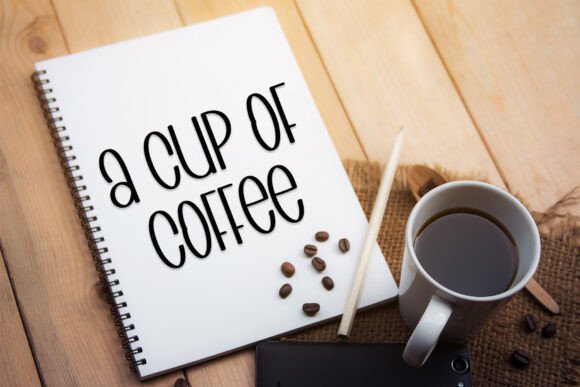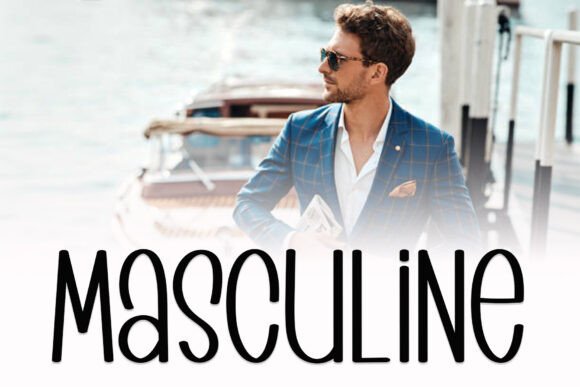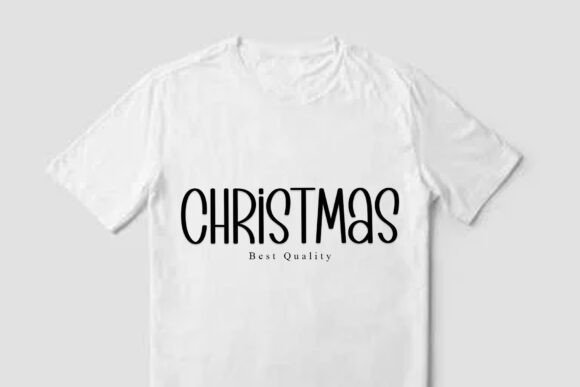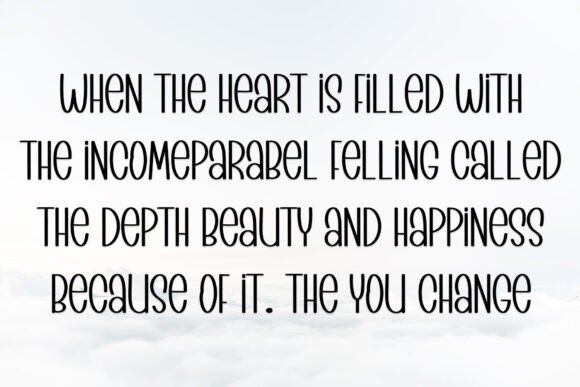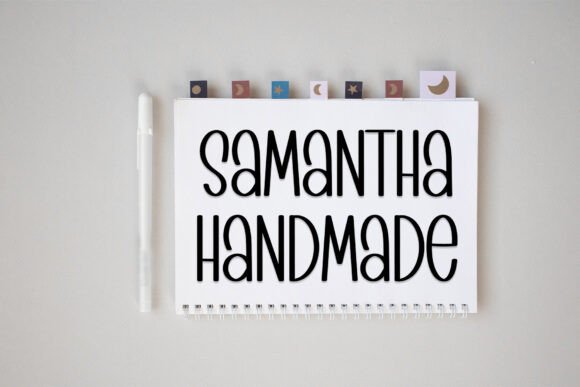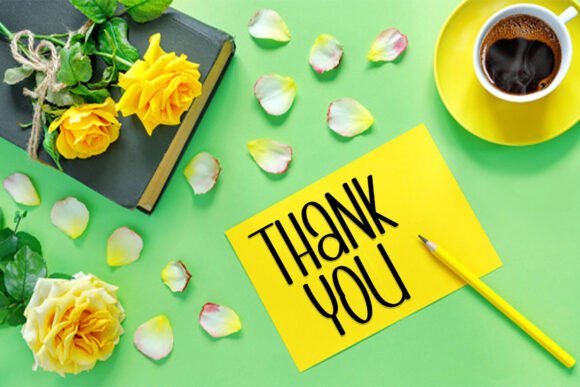
Discover the Charming Winter Font: A Friendly and Playful Typeface for Your Designs
Are you looking for a font that can add a touch of warmth and playfulness to your designs? Look no further than the Charming Winter font! This simple, clean sans serif typeface is perfect for fun and casual designs, and its friendly and approachable look makes it ideal for a variety of projects.
What is Charming Winter Font?
Charming Winter is a modern sans serif font that is designed to be easy to read and visually appealing. Its clean lines and simple shapes make it a versatile typeface that can be used for a wide range of design projects, from children’s materials to cheerful branding.
Key Features of Charming Winter Font
- Simple and Clean Design: Charming Winter has a simple and clean design that makes it easy to read and understand.
- Friend and Playful Look: The font has a friendly and playful look that makes it perfect for fun and casual designs.
- Modern Feel: Charming Winter has a modern feel that suits a variety of projects, from children’s materials to cheerful branding.
- Ease of Readability: The letters are easy to read, making it perfect for designs where readability is important.
Use Cases for Charming Winter Font
Charming Winter font is a versatile typeface that can be used for a wide range of design projects, including:
- Children’s Materials: The font’s playful and friendly look makes it perfect for children’s books, educational materials, and other kid-friendly designs.
- Cheerful Branding: Charming Winter is ideal for branding projects that require a fun and approachable look, such as logos, packaging, and advertising.
- Digital and Print Designs: The font can be used for both digital and print designs, including social media graphics, flyers, brochures, and more.
Benefits of Using Charming Winter Font
Using Charming Winter font in your designs offers several benefits, including:
- Unique and Eye-catching Designs: The font’s playful and friendly look can help you create unique and eye-catching designs that stand out from the crowd.
- Improved Readability: Charming Winter’s ease of readability makes it perfect for designs where readability is important, such as children’s materials and educational content.
- Flexibility: The font’s versatility makes it suitable for a wide range of design projects, from digital designs to print materials.
Tips for Using Charming Winter Font
Here are some tips for using Charming Winter font in your designs:
- Pair it with Other Fonts: Charming Winter can be paired with other fonts to create a unique and visually appealing design.
- Experiment with Colors: The font looks great in a variety of colors, so don’t be afraid to experiment and find the perfect color scheme for your design.
- Use it for Headings and Body Text: Charming Winter can be used for both headings and body text, making it a great choice for designs that require a lot of text.
In conclusion, Charming Winter font is a friendly and playful typeface that is perfect for fun and casual designs. Its simple and clean design, ease of readability, and modern feel make it a versatile font that can be used for a wide range of design projects. Whether you’re designing children’s materials, cheerful branding, or digital and print designs, Charming Winter font is a great choice.
So why not give Charming Winter font a try? With its unique and eye-catching designs, improved readability, and flexibility, it’s sure to become a favorite in your design toolkit.